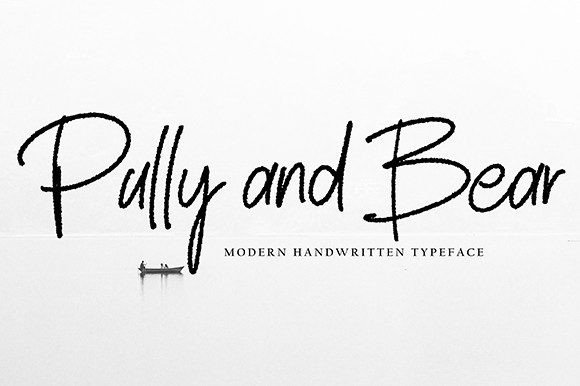
Introducing Pully and Bear Font - A Script Font Exuding Elegance and Creativity
Dive into the enchanting world of cursive writing with Pully and Bear Font, a captivating creation from Pineungtype & Missinklab. This exquisite script font bursts with personality, ready to transform your written words into breathtaking works of art.
With its graceful curves and playful flourishes, Pully and Bear Font empowers you to express your creativity like never before. Each letter dances across the page, carrying a touch of magic that will captivate your audience. Whether you're crafting heartfelt quotes, designing eye-catching logos, or adding charm to blog headers, this font is your ultimate companion.
Imagine your Instagram feed adorned with captivating quotes written in Pully and Bear Font, inspiring your followers with your profound thoughts or witty remarks. Your social media presence will radiate with sophistication and creativity, attracting a loyal following eager to engage with your captivating content.
But Pully and Bear Font isn't just limited to digital creations; its versatility extends to the physical world as well. Enchant your wedding invitations with its elegant script, making your special day truly unforgettable. Design stunning posters that will command attention, leaving a lasting impression on everyone who beholds them.
With Pully and Bear Font, the possibilities are endless. Unleash your imagination and let your words flow with grace and flair. Its unique style adds a touch of whimsy to any project, making it perfect for branding, packaging, and any creative endeavor that calls for a dash of personality.